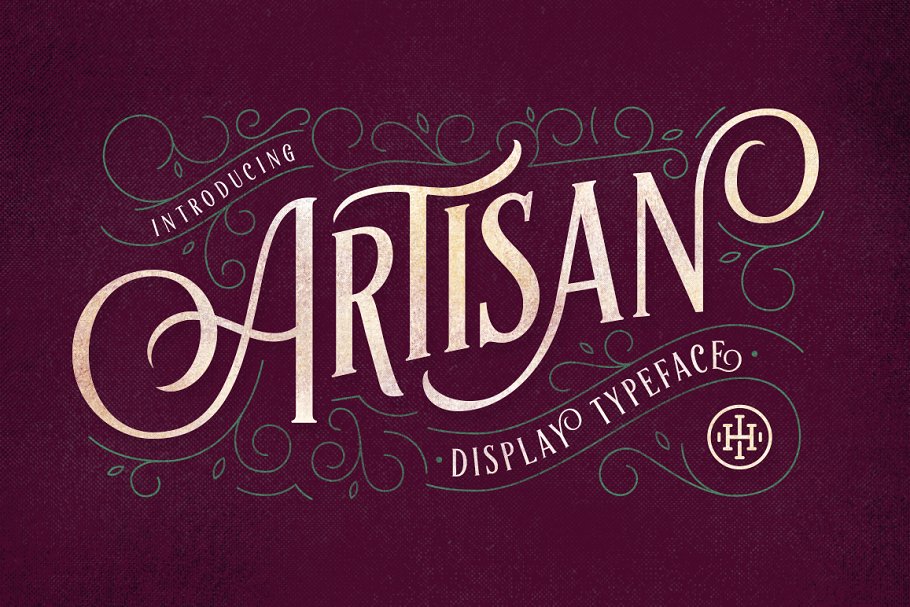
Looking for the perfect font to elevate your designs and make them stand out? Look no further than Artisan Display Typeface! Created by the talented Ilham Herry, this serif font is the epitome of classic style and will add a touch of elegance to any project.
With its all-caps design, Artisan Display Typeface exudes a timeless charm that is sure to captivate your audience. But what sets this font apart are its OpenType features, including Stylistic Alternates, Contextual Alternate, and Swash. These features allow you to mix and match pairs of letters, giving you endless possibilities to create unique and visually stunning designs.
The versatility of Artisan Display Typeface knows no bounds. Whether you're designing a logo, wedding invitation, t-shirt, poster, label, greeting card, letterhead, or book cover, this font will bring your vision to life. Its classic style and subtle ornamental touches make it perfect for any occasion or project.
When you download Artisan Display Typeface, you'll receive not only the font itself but also the Artisan Ornament. This additional font adds a charming touch of decorative elements to further enhance your designs. With these two fonts in your toolkit, you'll have everything you need to create truly extraordinary and eye-catching pieces.
Don't settle for ordinary fonts when you can have the best fonts for chart labels. Artisan Display Typeface is the perfect choice for those who want to make a lasting impression. Its classic elegance combined with its versatile design options will make your designs truly unforgettable.